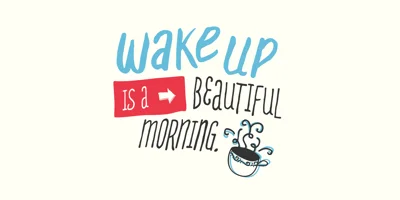
D.I.Y. Time Font
D.I.Y. Time Font is ideal for craft project branding, maker space signage, handmade product packaging, creative workshop materials, artisan business logos, home improvement guides, and DIY tutorial graphics.
What makes D.I.Y. Time Font exciting is its handcrafted authenticity and creative spirit, featuring artisanal letterforms that capture the essence of do-it-yourself culture while delivering genuine craftsmanship appeal and maker movement credibility.
The D.I.Y. Time Font family includes Light, Regular, Medium, Bold, and Heavy weights, plus handmade texture variants and craft-inspired alternates that enhance the font's artisanal character and creative possibilities.
D.I.Y. Time Font celebrates the authentic spirit of handmade creativity and personal craftsmanship. This exceptional typeface embodies the values of the maker movement and do-it-yourself culture, creating a genuine visual language that speaks to creative individuals who value personal expression, handmade quality, and authentic craftsmanship. The font's artisanal character and handcrafted appearance make it perfect for businesses and creators who want to communicate creativity, authenticity, and the personal touch that sets handmade products apart from mass production.
Craft businesses and maker entrepreneurs consistently choose D.I.Y. Time Font for projects that require creative authenticity and artisanal credibility. The typeface's handmade construction and crafty personality make it exceptionally effective for small businesses, creative workshops, and artisan brands who want to communicate personal dedication, creative skill, and the unique value of handcrafted products. Each character has been designed with artisanal attention to detail to ensure authentic appeal across all creative applications and maker environments.
The creative advantages of D.I.Y. Time Font extend beyond its handmade appeal to include practical functionality for diverse crafting applications. The font maintains excellent readability in instructional materials while delivering the distinctive character that connects with audiences who appreciate handmade quality and creative processes. Its comprehensive character set includes craft symbols and maker elements that make it particularly suitable for tutorial documentation and creative project communication.
Craft stores, maker spaces, and creative entrepreneurs frequently incorporate D.I.Y. Time Font into their brand identity systems because of its ability to instantly convey creative authenticity and handmade quality. The typeface's artisanal aesthetic helps establish trust and credibility while appealing to customers who value creativity, personal expression, and the satisfaction of creating something unique with their own hands.